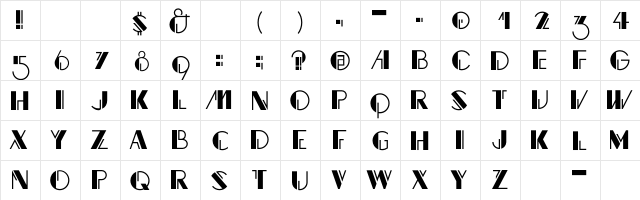
Rocodecoco Regular
Design Context for Rocodecoco Typeface
Rocodecoco uses fixed-width spacing throughout, giving it the structured, systematic character associated with coding environments and technical documentation.
A natural fit for code editors, technical documentation, developer-focused branding, and terminal-inspired UI.